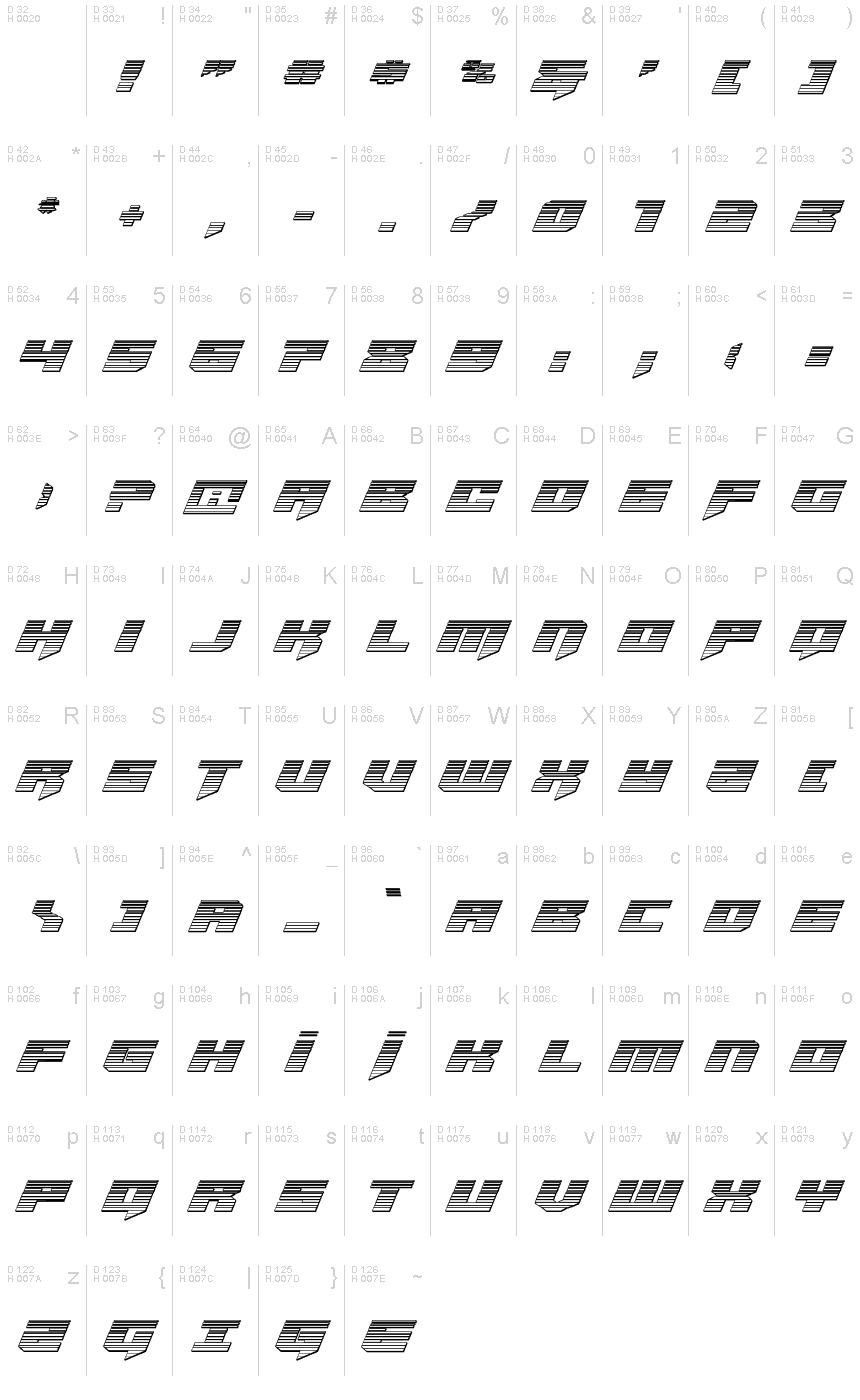
Bridge OFFicer Chrome
Bridge Officer Chrome, a standout creation by Iconian Fonts, commands attention with its extra-bold weight and extra-expanded width. This display font from the Bridge Officer family encapsulates the essence of the techno style, showcasing a futuristic aesthetic that is both sleek and assertive. The metallic sheen of its letterforms exudes an industrial charisma ideal for projects that aim to convey strength, innovation, and modernity.
The font's robust structure and clean lines offer exceptional legibility while maintaining an imposing presence on the page or screen. Bridge Officer Chrome is particularly well-suited for titles and headings in science fiction, gaming interfaces, tech startups branding materials, or any creative endeavor seeking a touch of contemporary sophistication.
With its blend of boldness and technological flair, Bridge Officer Chrome is more than just typography-it's a statement piece that can elevate your design to new heights. Whether used in digital graphics or print media, it guarantees to leave a lasting impression with its unmistakable character and style.